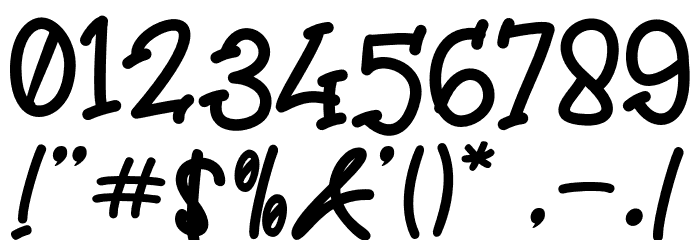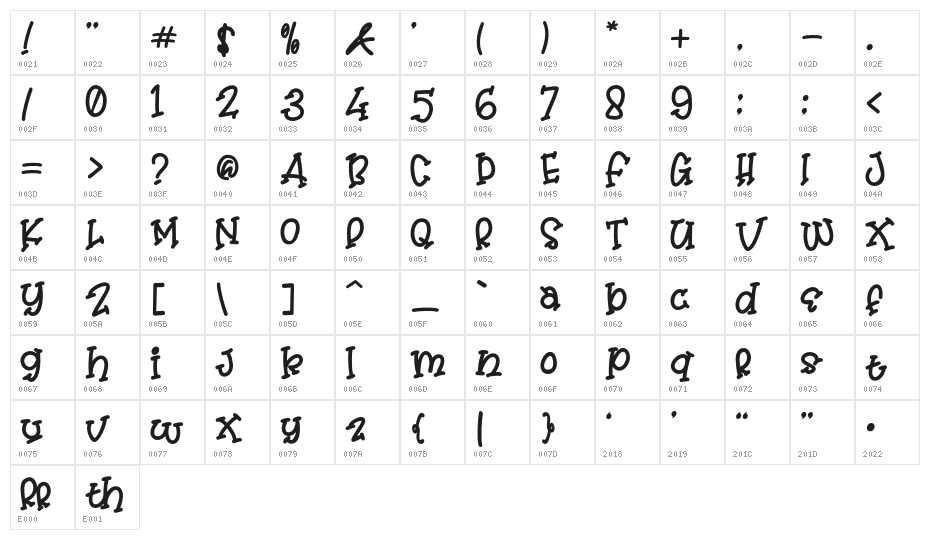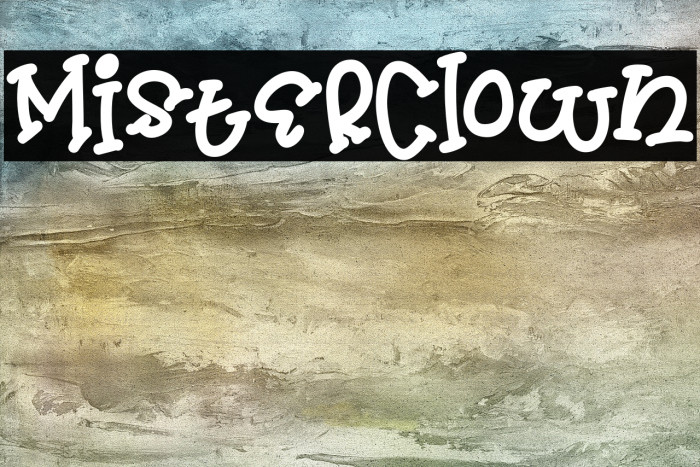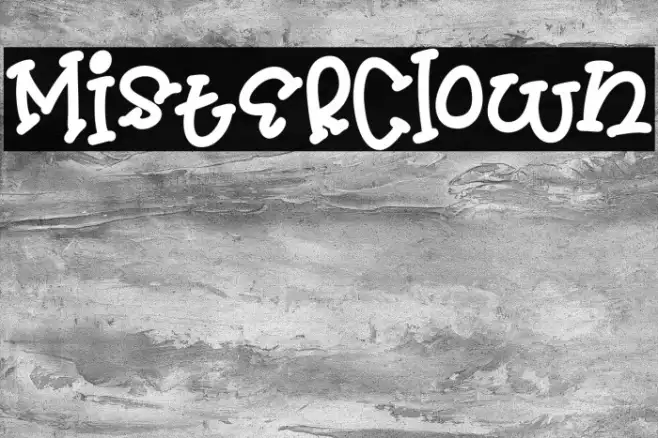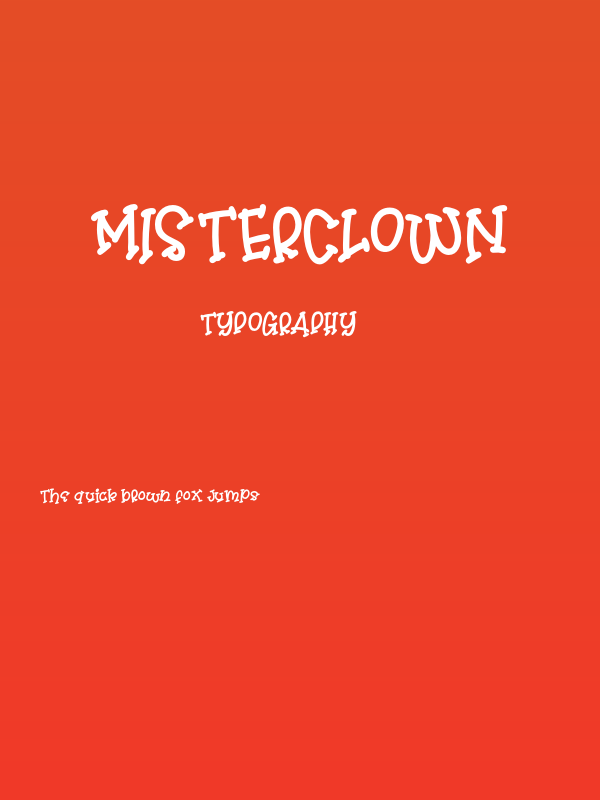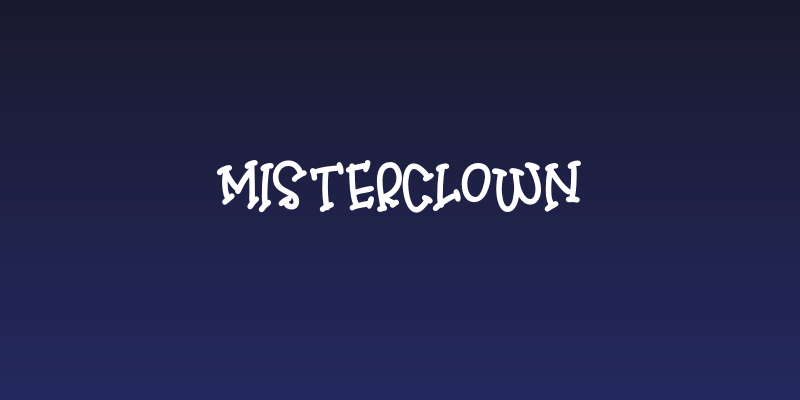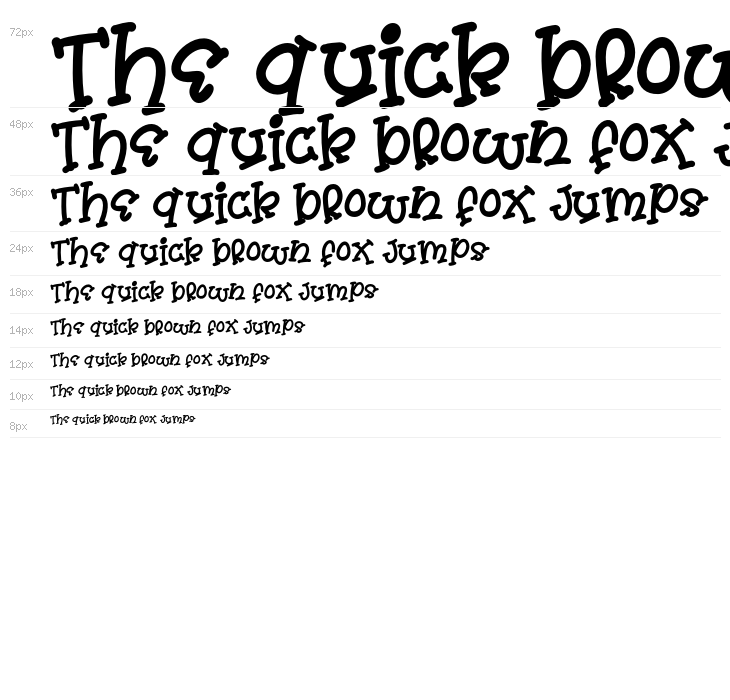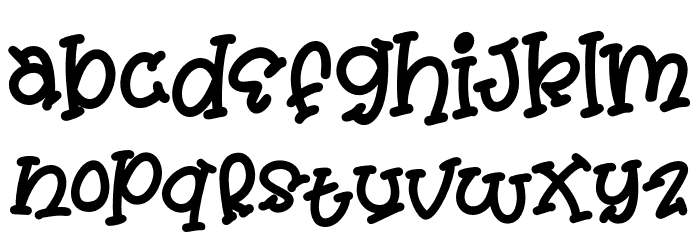
MisterClown Font
MisterClown Description
This playful and whimsical font features bold, rounded characters with a hand-drawn appearance. The letters exhibit a unique, bouncy style with varying stroke thickness, giving them a lively and energetic feel. The uppercase and lowercase letters maintain a consistent design, while the numerals and special characters complement the overall aesthetic. The font's irregular shapes and curves add a sense of fun and creativity, making it ideal for projects that require a touch of humor and personality.
| Overall Style | Whimsical, Playful, Creative |
| Proposed Projects | Perfect for children's books, comic strips, playful branding, party invitations, and creative posters. |